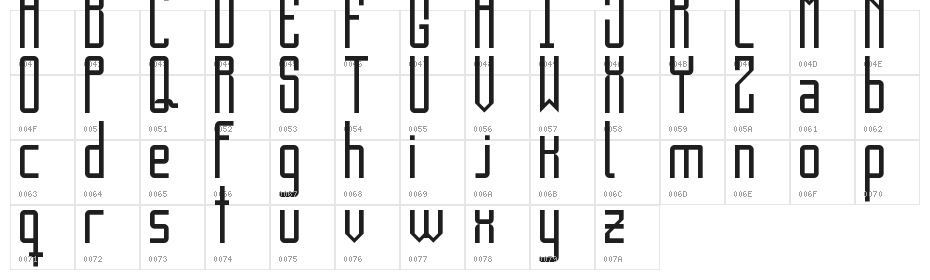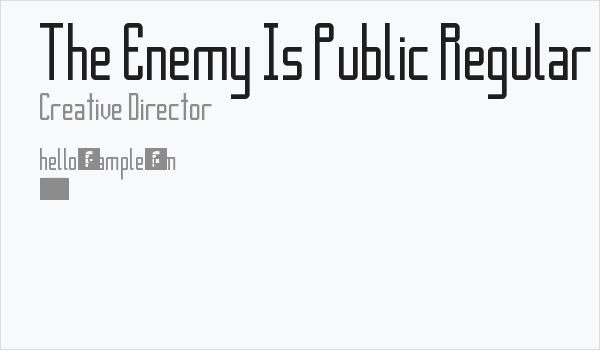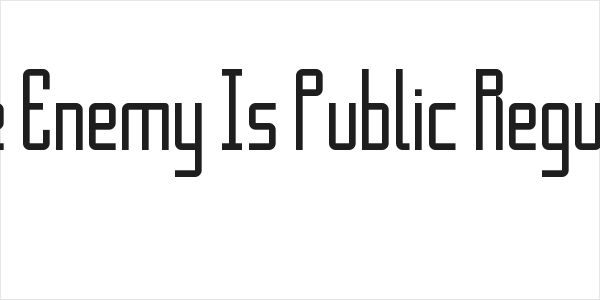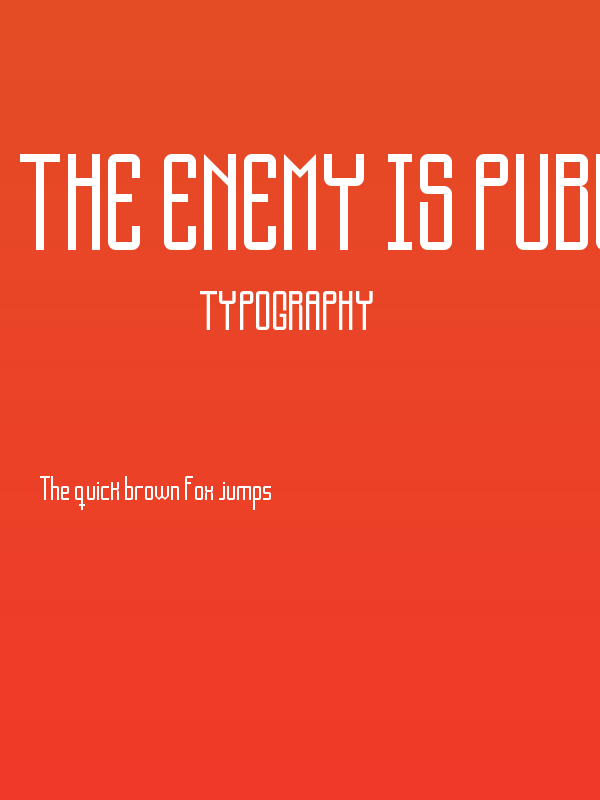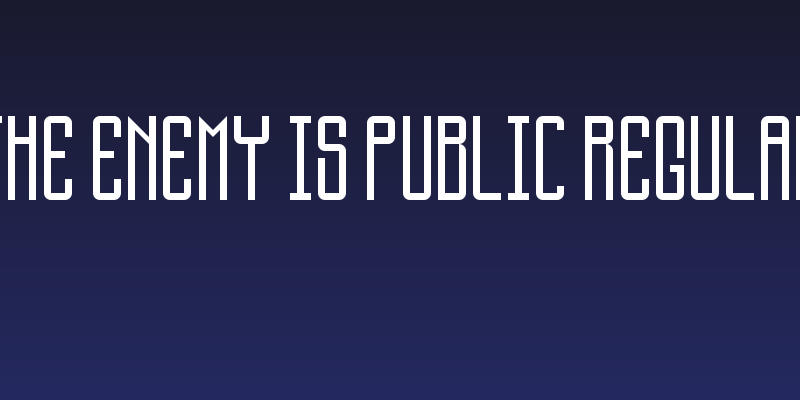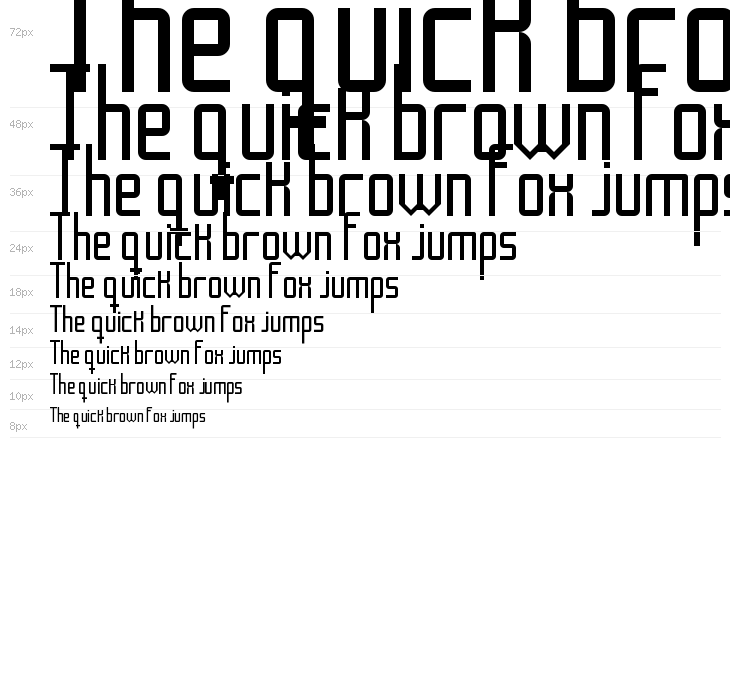
The Enemy Is Public Regular Font
The Enemy Is Public Regular Description
This font features a modern, geometric design with a distinct, angular appearance. The characters are constructed with straight lines and sharp corners, giving it a futuristic and technical feel. The uppercase letters are tall and narrow, while the lowercase letters maintain a consistent height, contributing to a uniform look. The numerals and special characters follow the same design principles, ensuring a cohesive appearance across all glyphs. The font's unique style makes it suitable for projects that require a bold, contemporary aesthetic.
| Use Case | Logos, Headlines |
| Proposed Projects | Ideal for technology branding, futuristic posters, and digital interfaces. |